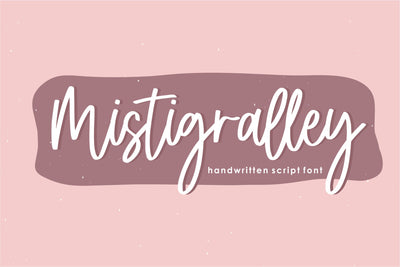
Mistigralley
Proudly Present, Mistigralley
Mistigralley is a Handwritten Script Font
Mistigralley is perfect for product packaging, branding project, megazine, social media, wedding, or just used to express words above the background.